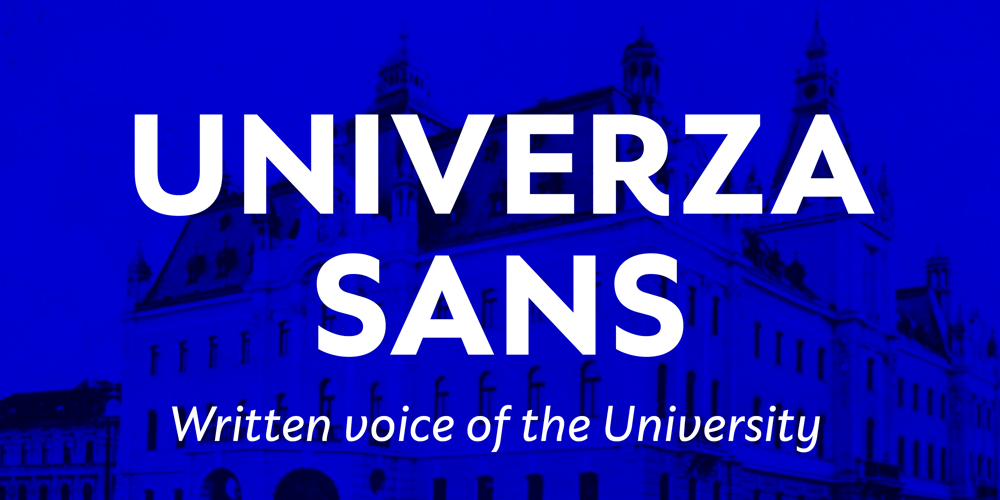
Univerza Sans
Univerza Sans font
Univerza Sans Font Family was designed by Alja Herlah and published by Type Salon. Univerza Sans contains 2 styles and family package options. Univerza Sans was developed to mark the hundredth anniversery of University of Ljubljana. The style is influenced by the combination of Slovenian avantgarde with some recognizable forms that are known for Slovenian typography. Multifunctional use for identity system, formal communication, wayfinding, academic and scientific articles in order to share the institution’s spirit of knowledge, creativity, diversity and belonging. It speaks Central European languages, feels official but looks attractive and recognizable.